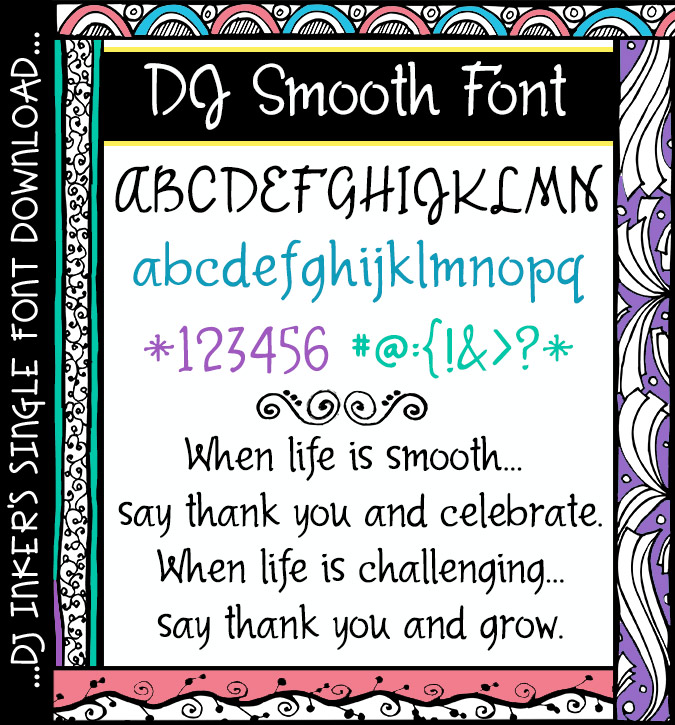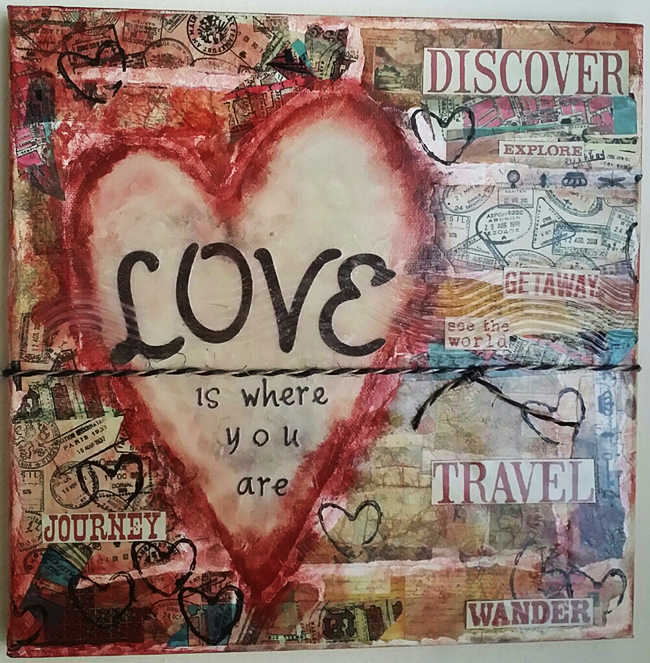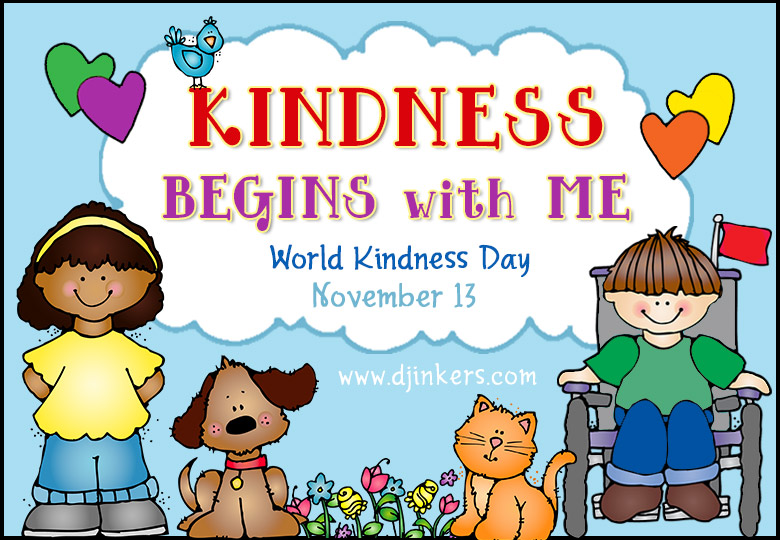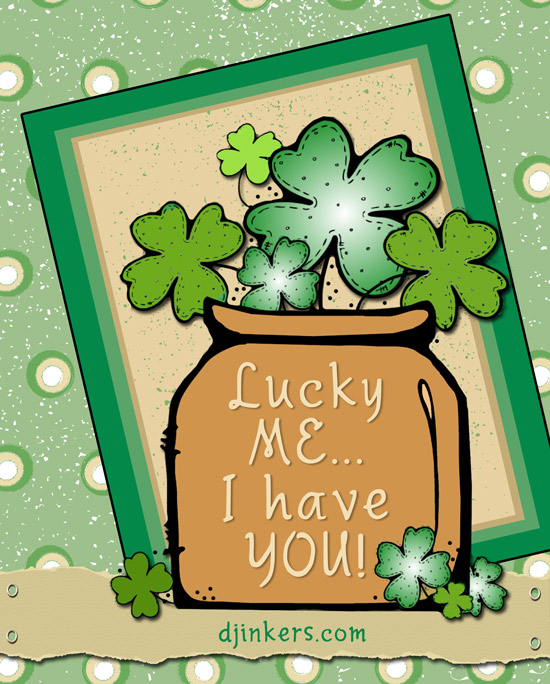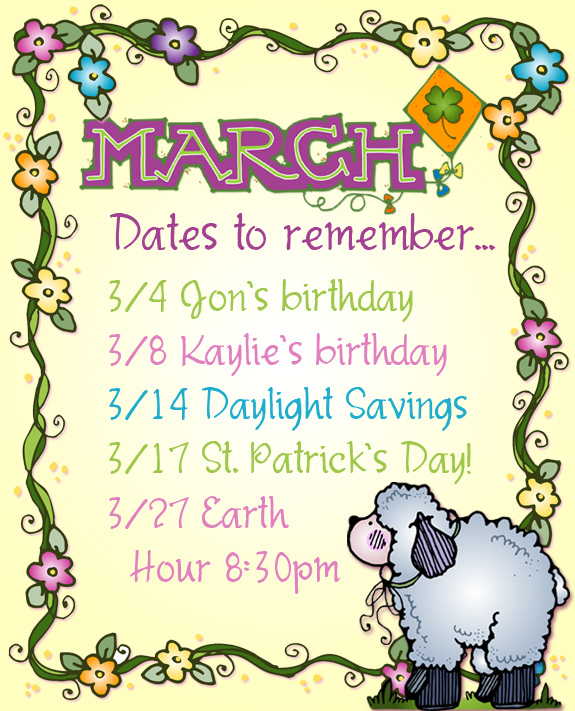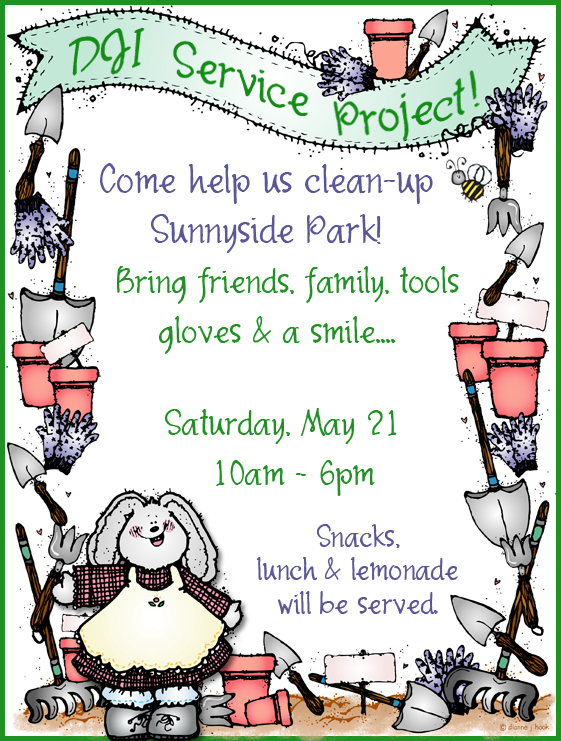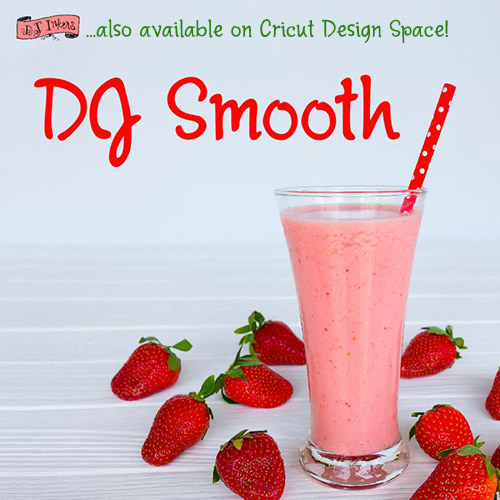
Your projects will look DJ Smooth with this sleek and graceful font. The hand drawn lettering is sassy and classy... but still clean and easy to read in any size. Great for special events and invitation text, journals, scrapbooks, home crafts and more.